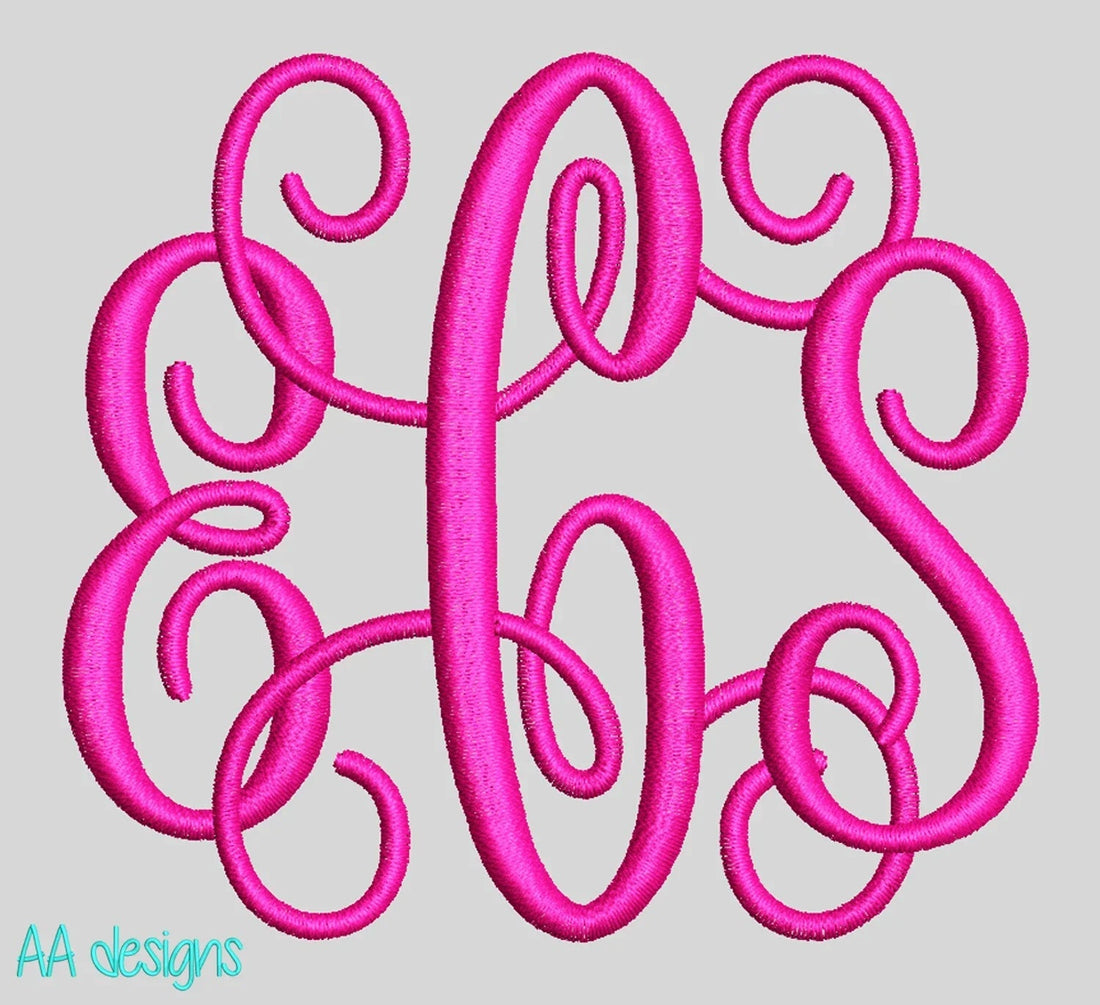
Best Monogram Embroidery Fonts for Personalized Gifts
Why Monogram Embroidery Fonts Are a Must-Have
Monogram embroidery fonts are one of the most popular choices for personalizing gifts, apparel, and home décor. Whether you're creating custom towels, tote bags, baby blankets, or wedding gifts, a beautiful monogram adds a timeless, elegant touch that customers love.
What Makes a Great Monogram Embroidery Font?
Not all monogram fonts are created equal. The best monogram embroidery fonts share these qualities:
- Clean stitch paths — smooth, precise stitching with no overlaps or gaps
- Scalable sizes — works beautifully from small 1" monograms to large 4"+ designs
Top Monogram Embroidery Font Styles
1. Script Monogram Fonts
Script monogram fonts like Vine Monogram and Magnolia Sky are perfect for elegant, flowing designs. They work beautifully on wedding gifts, bridal party items, and luxury apparel.
2. Block Letter Monogram Fonts
Bold and classic, block letter monograms like Circle Monogram and Interlocking Monogram are ideal for sports gear, kids' items, and corporate gifts.
3. Decorative Monogram Fonts
Add a unique flair with decorative styles like Fishtail Monogram, Daisy Monogram, and Scalloped Heart Monogram — perfect for baby showers, birthdays, and seasonal gifts.
4. Character Monogram Fonts
Fun and whimsical options like Mickey Monogram and Fleur-de-lis bring personality to children's items and themed gifts.
How to Choose the Right Monogram Font
Consider these factors when selecting your monogram embroidery font:
- Fabric type — delicate scripts work best on smooth fabrics; bold block letters suit thicker materials like towels and canvas
- Item size — match font complexity to the available embroidery area
- Recipient style — classic, modern, or playful?